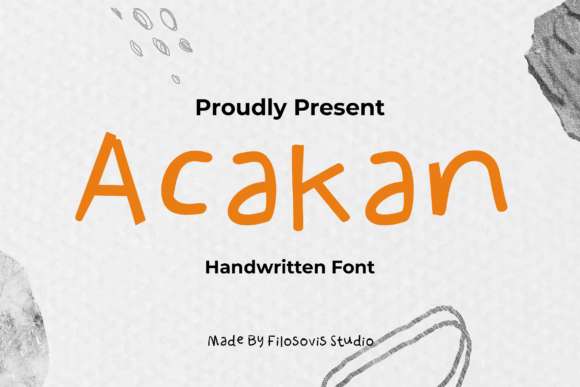
Acakan Font: Adding a Playful Twist to Your Designs
In the world of typography, fonts play a crucial role in conveying the tone and personality of a brand or design. With numerous font options available, it can be challenging to find the perfect one that stands out from the crowd. However, if you’re looking for a font that adds a playful twist to your designs, look no further than Acakan Font. In this article, we’ll explore the unique features of Acakan Font and how it can elevate your designs to the next level.
What is Acakan Font?
Acakan Font is a handwritten font that boasts a whimsical and playful charm. Its unique letterforms are carefully crafted to add a touch of personality to any design. With its irregular shapes and sizes, Acakan Font exudes a sense of joy and friendliness, making it perfect for designs that require a human touch.
Acakan Font is a versatile font that can be used for a wide range of design projects, from eye-catching headlines and vibrant posters to playful branding projects. Its distinctive style ensures that your designs stand out from the crowd, leaving a lasting impression on your audience.
Key Features of Acakan Font
- Whimsical letterforms: Acakan Font features unique and irregular letterforms that add a playful touch to your designs.
- Handwritten style: The font’s handwritten style gives it a personal and human touch, making it perfect for designs that require a friendly tone.
- Versatile: Acakan Font can be used for a wide range of design projects, from posters and headlines to branding and packaging.
- Easy to read: Despite its playful style, Acakan Font is easy to read, making it perfect for designs that require a clear and concise message.
Uses of Acakan Font
Acakan Font is a versatile font that can be used in various design projects. Here are some of the most popular uses of Acakan Font:
- Headlines and titles: Acakan Font is perfect for creating eye-catching headlines and titles that grab the attention of your audience.
- Posters and flyers: The font’s playful style makes it ideal for posters and flyers that require a vibrant and energetic tone.
- Branding and packaging: Acakan Font can be used to create unique and memorable branding and packaging designs that reflect the personality of your brand.
- Social media graphics: The font’s playful style makes it perfect for social media graphics, such as Instagram posts and Facebook covers.
Benefits of Using Acakan Font
Using Acakan Font in your designs offers numerous benefits. Here are some of the most significant advantages of using Acakan Font:
- Adds personality to your designs: Acakan Font’s unique style adds a touch of personality to your designs, making them more relatable and engaging.
- Creates a playful tone: The font’s playful style creates a friendly and approachable tone, making it perfect for designs that require a human touch.
- Enhances creativity: Acakan Font’s whimsical letterforms inspire creativity and imagination, making it perfect for designers who want to push the boundaries of their designs.
Tips for Using Acakan Font
To get the most out of Acakan Font, here are some tips to keep in mind:
- Use it sparingly: Acakan Font is a bold font, so use it sparingly to avoid overwhelming your designs.
- Pair it with a simple font: Pair Acakan Font with a simple font to create contrast and make your designs more readable.
- Experiment with colors: Acakan Font looks great in bold and bright colors, so experiment with different colors to find the perfect combination for your designs.
- Keep it consistent: Use Acakan Font consistently throughout your designs to create a cohesive look and feel.
In conclusion, Acakan Font is a unique and playful font that adds a touch of personality to any design. Its whimsical letterforms and handwritten style make it perfect for designs that require a friendly and approachable tone. With its versatility and ease of use, Acakan Font is an excellent choice for designers who want to create eye-catching headlines, vibrant posters, and playful branding projects. So why not give Acakan Font a try and infuse your designs with joy and personality?